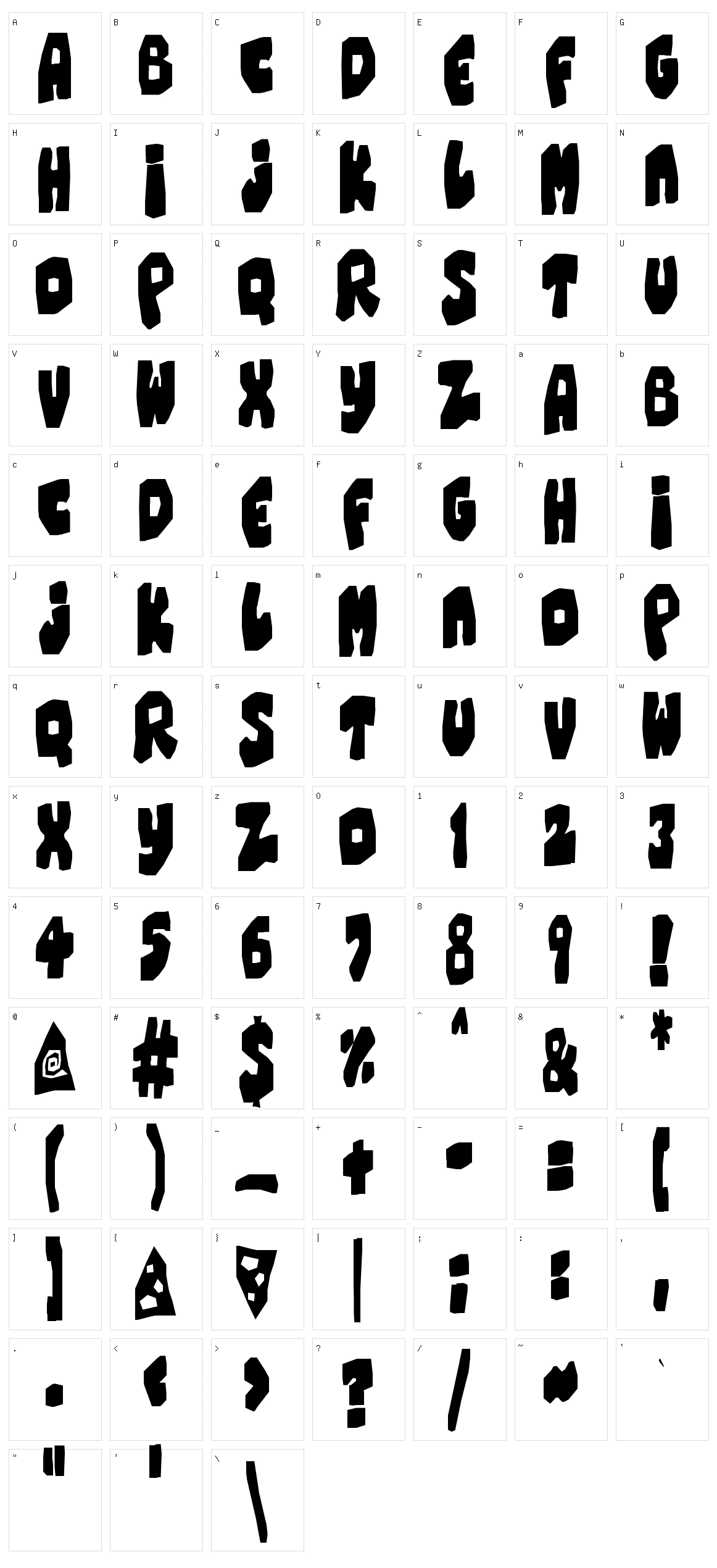
The free font Chunky Cheese is carefully designed by Hawtpixel, showcasing a thoughtful balance of creativity and usability and falls under the Cartoon font style. When you download the ZIP file, it contains only 78.06 KB of font files, making it lightweight and quick to download. Please review the license details below to understand permitted usage and distribution rights. If license information is not available, we recommend using this font for personal projects only or contacting the author directly for commercial usage permissions.